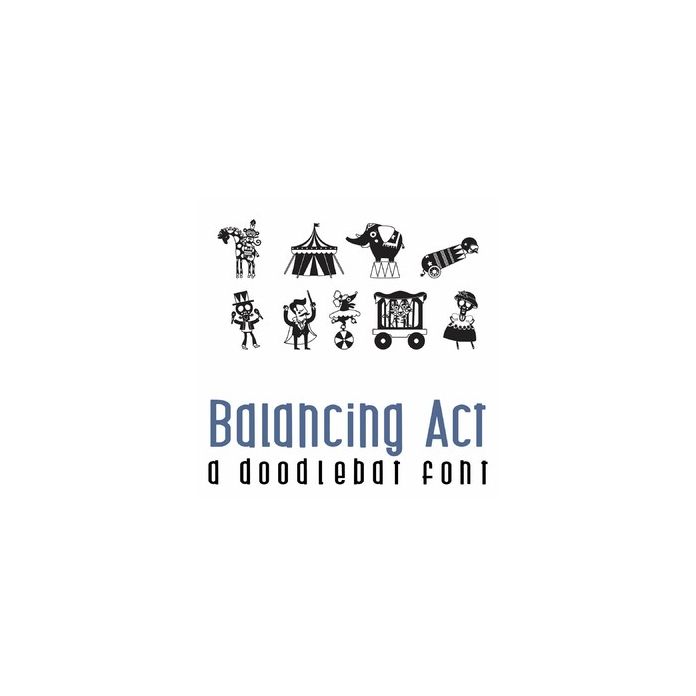
This fun full-color doodlebat font features 35 adorable carnival and skeleton images perfect for cards, crafts, gifts, scrapbook pages, planner stickers, and more!